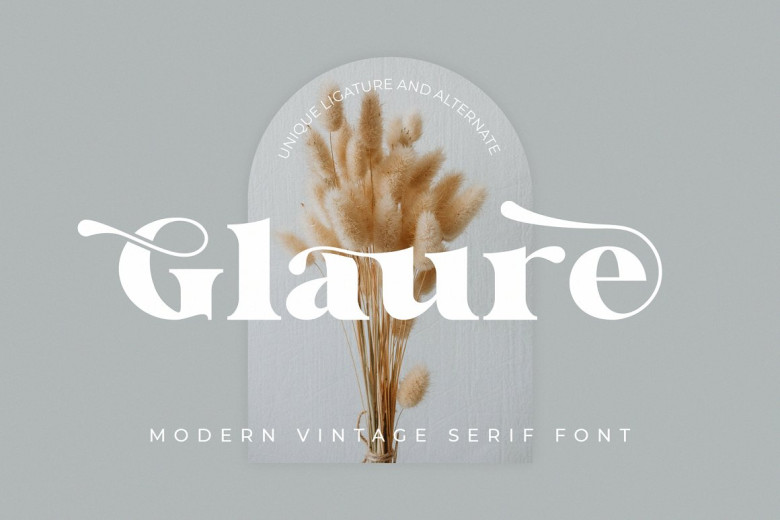
Glaure Font
Glaure Vintage Serif is an exquisite and balanced serif font, perfect for invitation cards, corporate logos, film titles and movie names, book titles Brand names as well as many other designs. With its graceful alternations and ligature options this font makes an excellent complement for any design project.
Glaure Vintage Serif Font